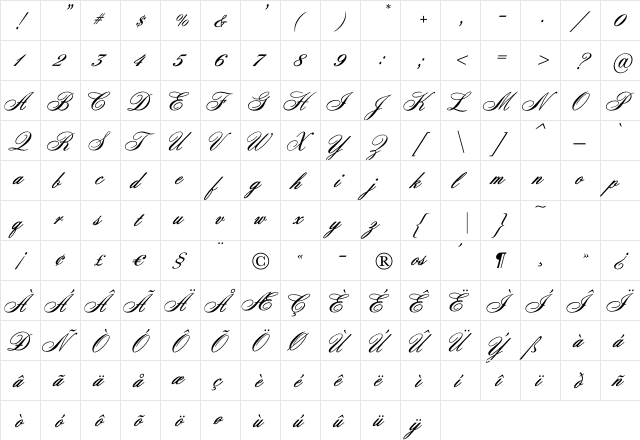
NocturneC Regular
Design Context for NocturneC Typeface
NocturneC is a composed and adaptable typeface that performs quietly and consistently across a wide range of design contexts.